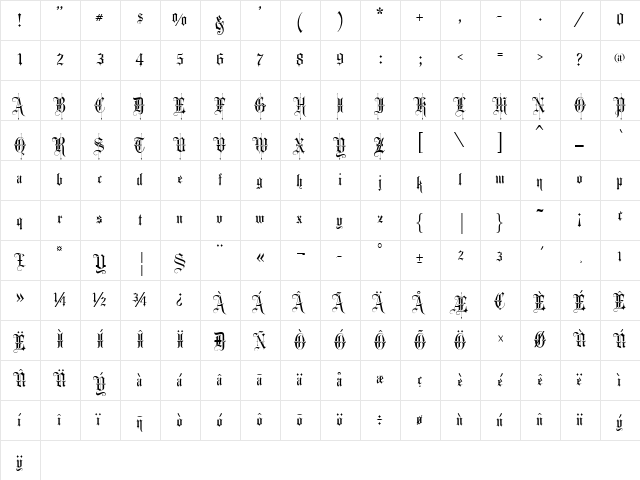
FancyText Regular
Design Context for FancyText Typeface
FancyText is a composed and adaptable typeface that performs quietly and consistently across a wide range of design contexts.